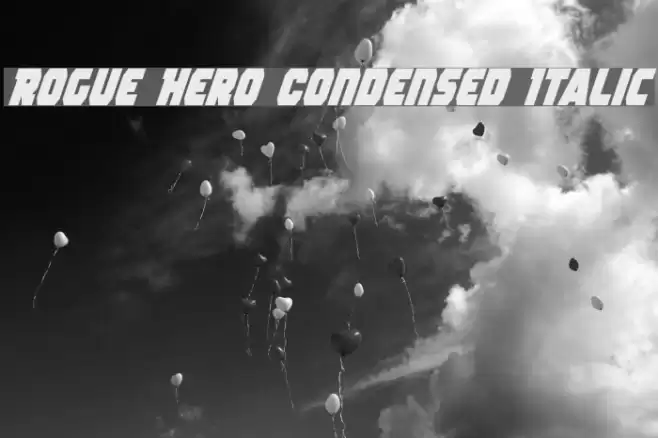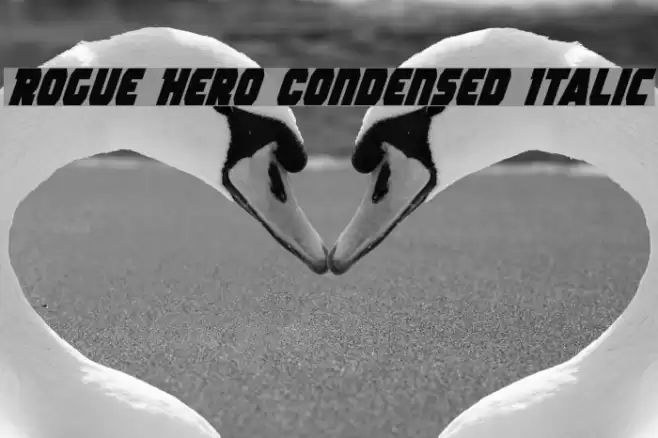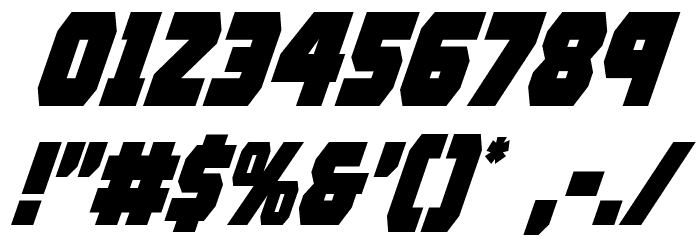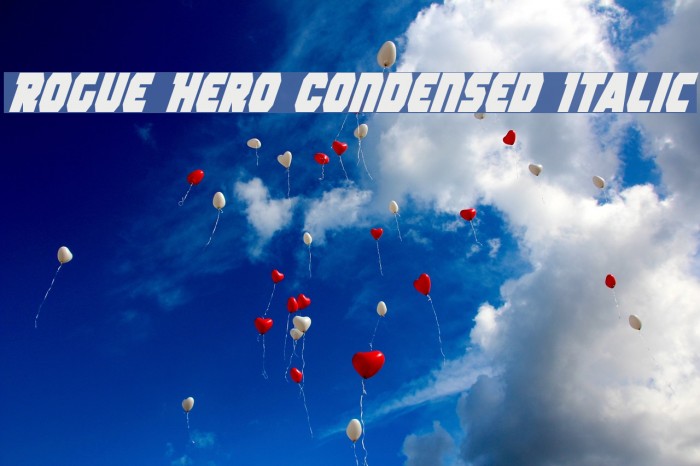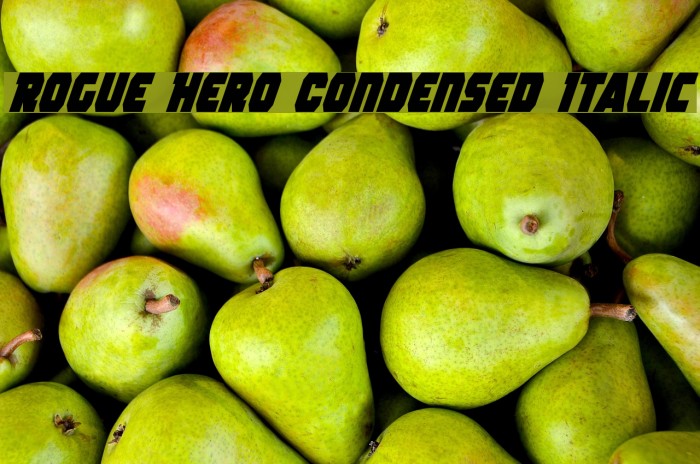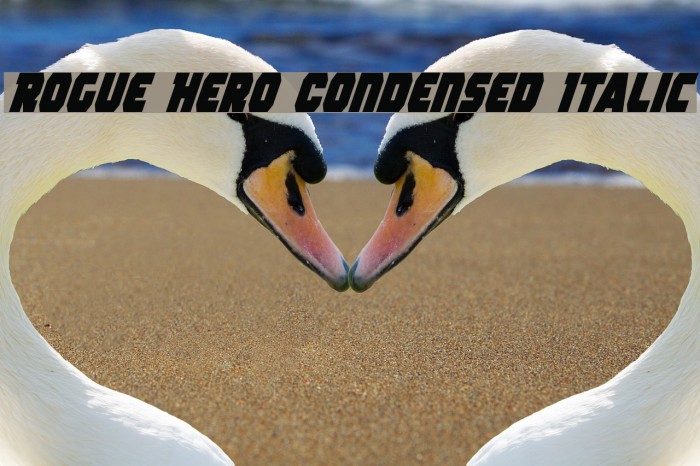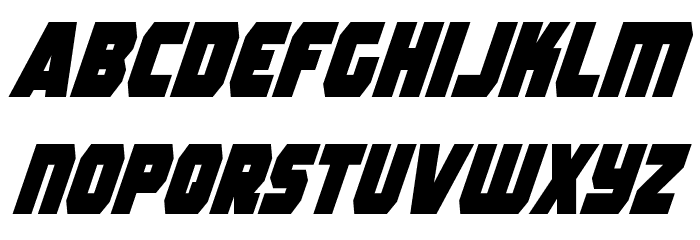
Rogue Hero Condensed Italic Font
Rogue Hero Condensed Italic Description
This font features a bold and dynamic design with a strong, angular structure. The characters are condensed and italicized, giving a sense of movement and urgency. The uppercase letters are particularly striking, with sharp edges and a futuristic feel. The numbers and special characters maintain the same boldness and angularity, ensuring consistency across all glyphs. This font is ideal for projects that require a modern and impactful look, such as sports branding, action movie posters, or video game titles.
A bold, condensed, and italicized font with a dynamic and angular design from Uncategorized fonts.
- Proposed Projects: Ideal for sports branding, action movie posters, video game titles, and dynamic advertising campaigns.
- Character Spacing: Tight